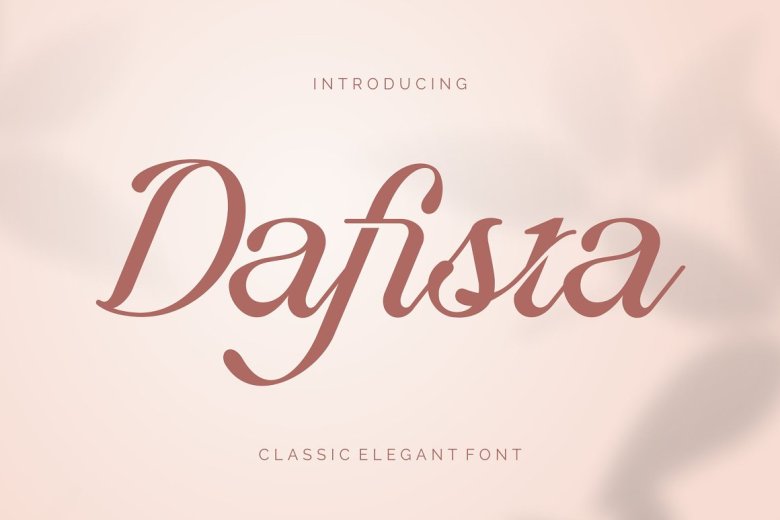
Dafista Font
Here’s a demonstration of “Dafista”. Dafista is a very classy classic with unique ligatue. From our experience as a graphic designer who works for many companies, we often request to make a very unique design but still in a very classy shape of logos. So, we try to brainstorm and make this font to make the idea is going out.
This one is perfect for BRANDING and LOGO DESIGN. Your logos will look classy, ​​elegant, and certainly very unique.
Dafista Script Font